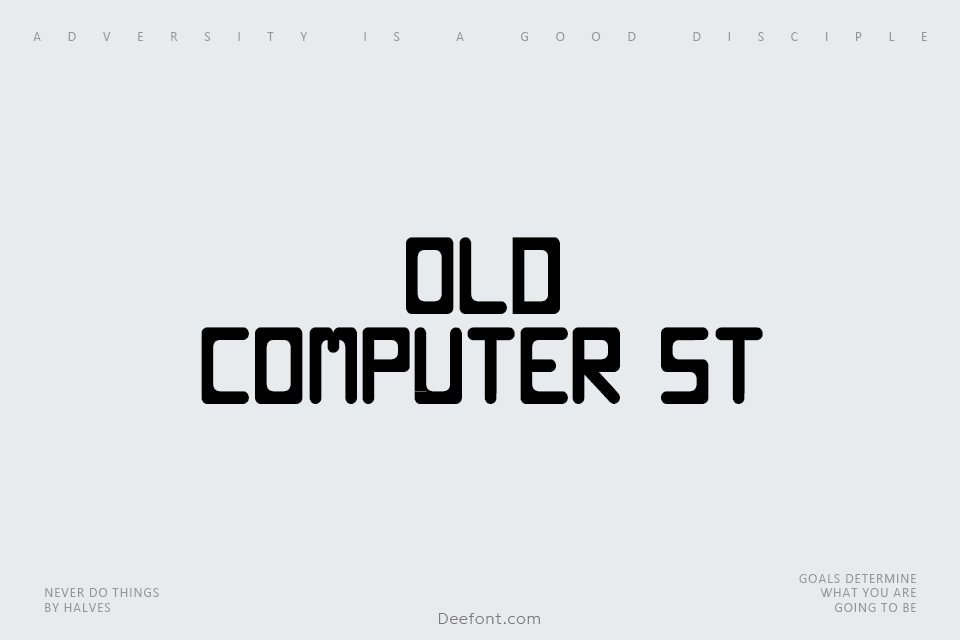
Old Computer ST Font
Old Computer ST is a retro-inspired display font designed by Southype, featuring geometric, blocky letterforms inspired by early 1980s and 1990s computer aesthetics. With its sharp edges and pixel-like strokes, this monospaced typeface delivers authentic vintage charm perfect for creating nostalgic digital interfaces, gaming graphics, retro posters, and tech-inspired branding projects.